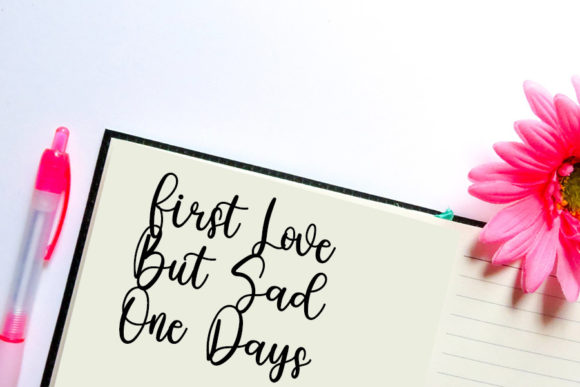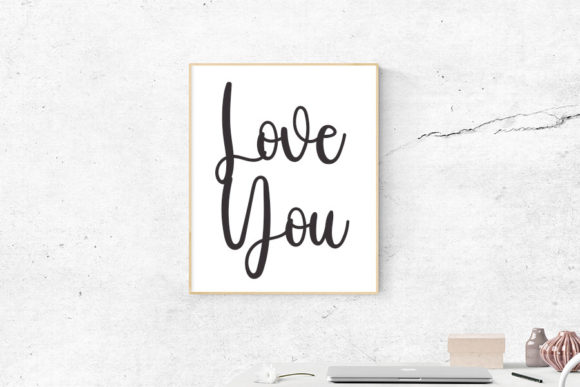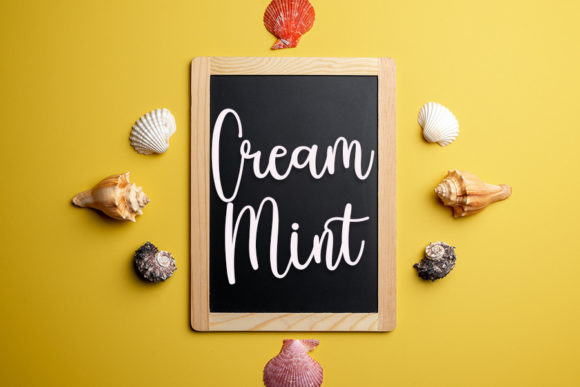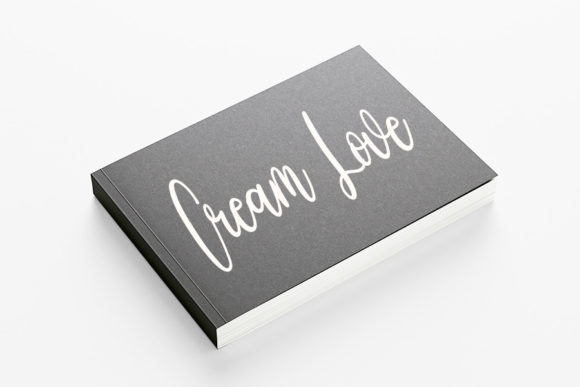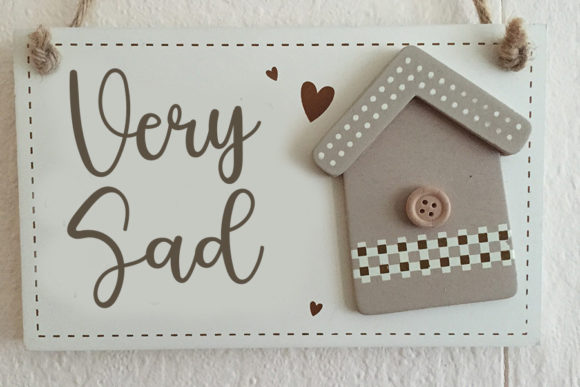
Candy Christmas Font: A Sweet Addition to Your Holiday Designs
The holiday season is upon us, and with it comes the need for festive and fun designs that capture the spirit of Christmas. If you’re a designer, crafter, or DIY enthusiast, you’re likely on the lookout for the perfect font to add a touch of magic to your projects. Look no further than the Candy Christmas Font, a lovely script font that’s sure to make your creations stand out.
What is Candy Christmas Font?
Candy Christmas Font is a charming script font that features playful characters that seem to dance along the baseline. Its whimsical design makes it perfect for a variety of holiday projects, from Christmas cards and invitations to decorations and gift tags. With its sweet and festive vibe, this font is sure to add a touch of holiday cheer to any design.
Key Features of Candy Christmas Font
- Playful Characters: The Candy Christmas Font features charming, playful characters that seem to dance along the baseline, adding a touch of whimsy to your designs.
- Script Font: This font is a script font, making it perfect for creating festive and elegant designs.
- Holiday-themed: The font’s holiday theme makes it perfect for Christmas projects, but it can also be used for other festive occasions.
Why Use Candy Christmas Font?
There are many reasons why you should consider using the Candy Christmas Font in your holiday designs. Here are a few:
- Adds a Touch of Whimsy: The font’s playful characters add a touch of whimsy to your designs, making them more engaging and fun.
- Perfect for Holiday Projects: The font’s holiday theme makes it perfect for Christmas projects, from cards and invitations to decorations and gift tags.
- Easy to Pair with Other Fonts: The Candy Christmas Font pairs well with other fonts, making it easy to create unique and interesting designs.
- Scalable: The font is scalable, making it perfect for use in a variety of projects, from small gift tags to large banners.
Tips and Tricks for Using Candy Christmas Font
Here are a few tips and tricks for using the Candy Christmas Font:
- Use it with Other Fonts: Pair the Candy Christmas Font with other fonts to create unique and interesting designs.
- Add Colors and Shapes: Add colors and shapes to your design to make it more festive and engaging.
- Experiment with Sizes: Experiment with different font sizes to create visual interest and hierarchy in your design.
- Use it for Headings and Titles: Use the Candy Christmas Font for headings and titles to add a touch of whimsy and festivity to your design.
The Candy Christmas Font is a lovely script font that’s perfect for adding a touch of holiday cheer to your designs. With its playful characters, holiday theme, and ease of use, it’s a great addition to any design project. Whether you’re a designer, crafter, or DIY enthusiast, this font is sure to make your creations stand out. So why not give it a try and see how it can add some sweetness to your holiday designs?